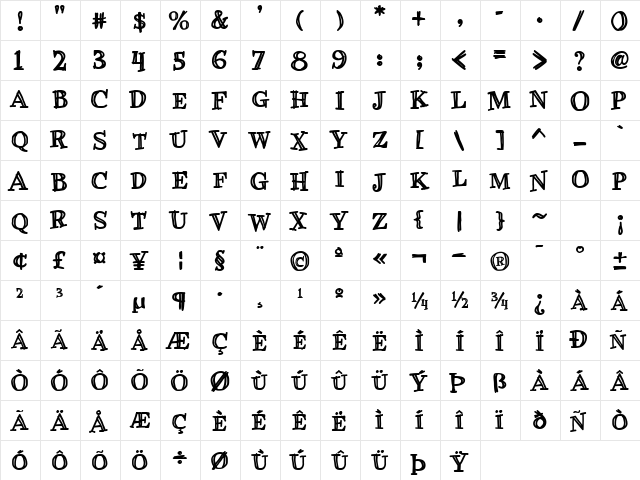
CCWiccanSerifInt Bold Font Preview
CCWiccanSerifInt Bold
CCWiccanSerifInt Bold Font Details
Design Context for CCWiccanSerifInt Typeface
CCWiccanSerifInt brings classic typographic sensibility to the table — its serifs and measured letterforms reflect centuries of print heritage. The heavy weight commands attention and anchors typographic hierarchies.
Pro Tip: Use CCWiccanSerifInt for editorial body copy and considered headline work. Pair with a neutral sans for UI elements or captions to create a classic hierarchy.